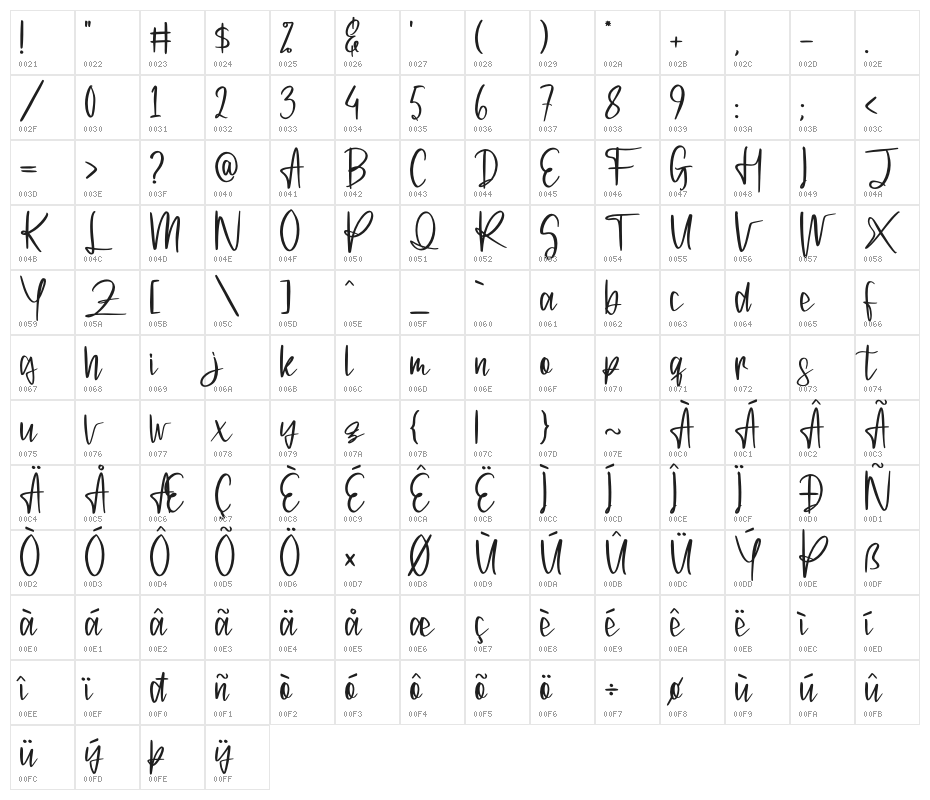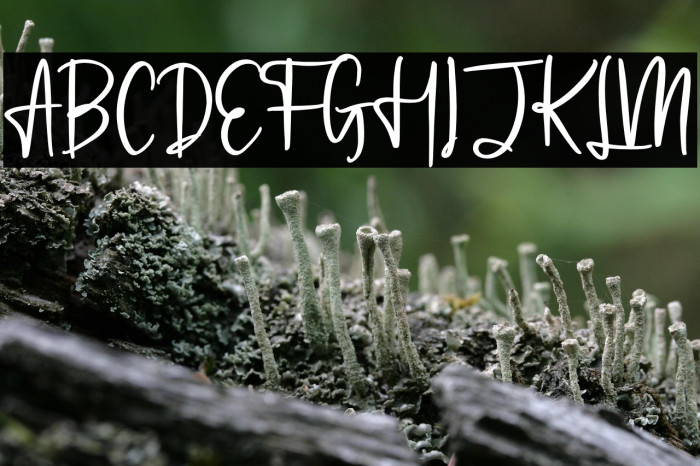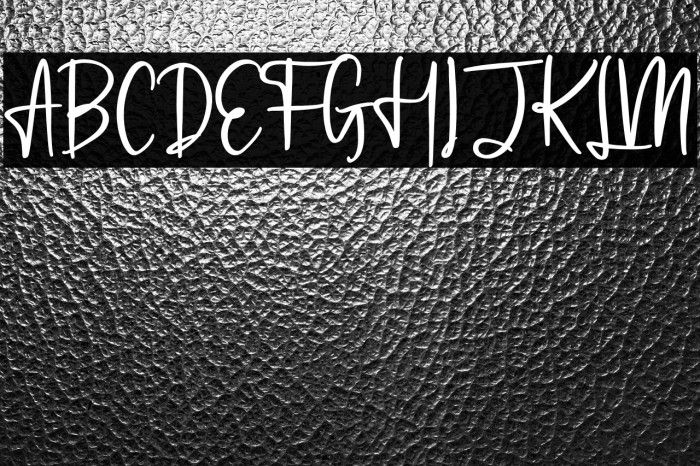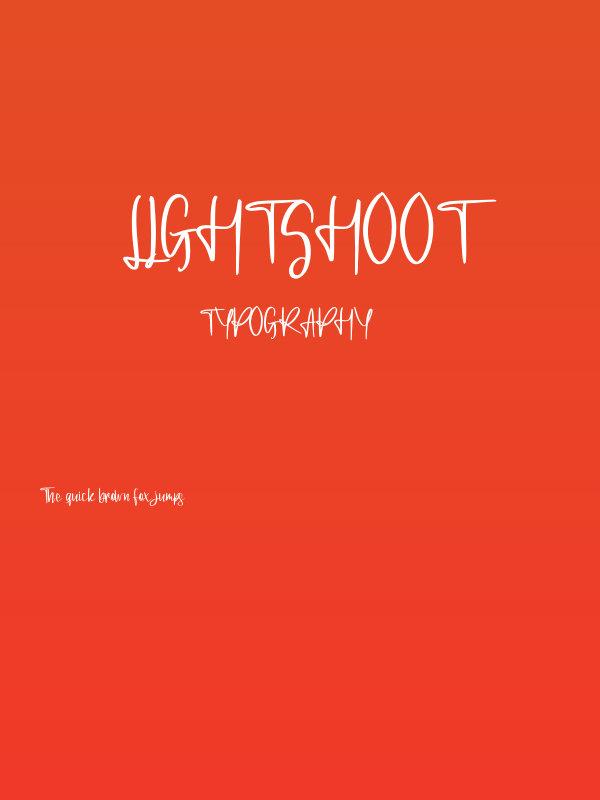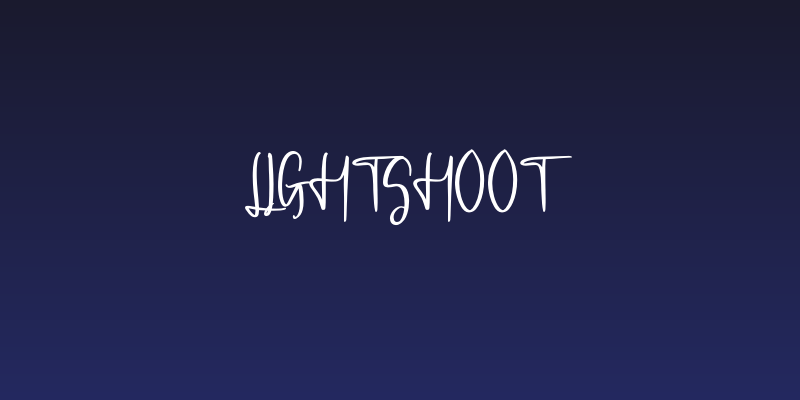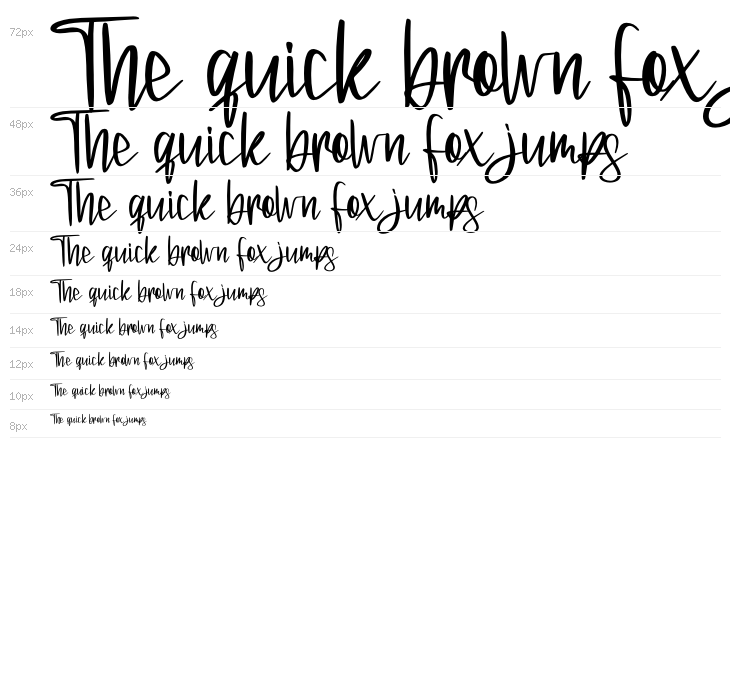
Lightshoot Font
Lightshoot Description
This font features a dynamic and energetic handwritten style, characterized by its fluid and spontaneous strokes. The uppercase letters are bold and expressive, with a playful yet sophisticated flair. The lowercase letters maintain a consistent flow, enhancing readability while preserving the font's artistic essence. Numbers and special characters are crafted with the same attention to detail, ensuring a cohesive look across all text elements. The font's unique personality makes it ideal for creative projects that require a personal touch.
| Use Case | Logos, Headlines, Invitations |
| Proposed Projects | Ideal for branding, invitations, greeting cards, and social media graphics where a personal and artistic touch is desired. |